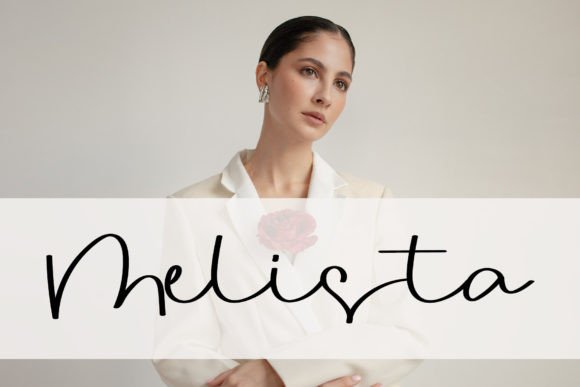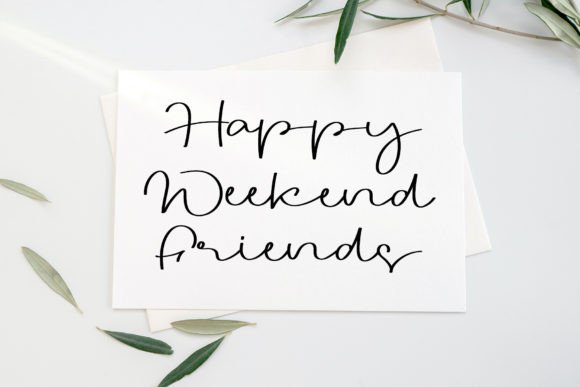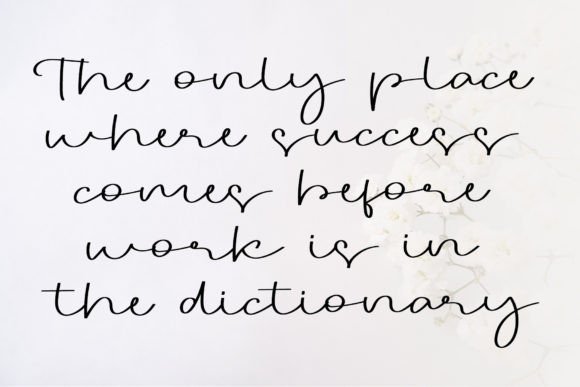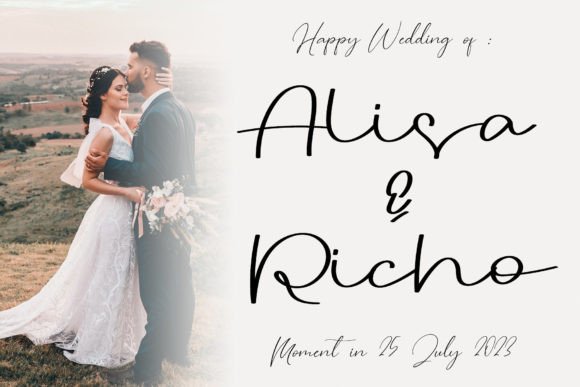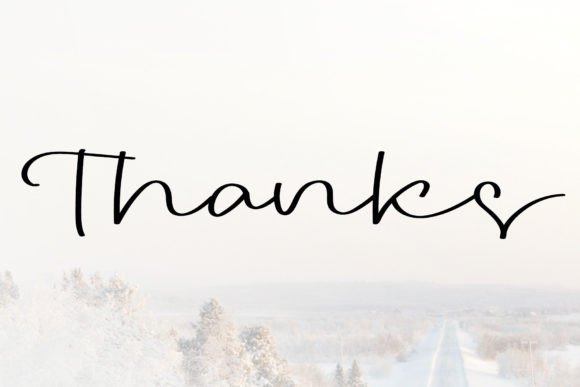
Introducing Blasted Font: The Sweet and Cursive Handwritten Font for Your Design Needs
Are you looking for a font that can add a touch of elegance and romance to your designs? Look no further than Blasted Font, a sweet and cursive handwritten font that is perfect for a variety of design projects. In this article, we’ll take a closer look at Blasted Font and explore its features, uses, and benefits.
What is Blasted Font?
Blasted Font is a beautiful, handwritten font that is designed to add a touch of warmth and personality to your designs. Its gentle, cursive script makes it perfect for creating elegant and sophisticated designs that are sure to impress. Whether you’re working on a branding project, designing a logo, or creating wedding materials, Blasted Font is the perfect choice.
Features of Blasted Font
So, what makes Blasted Font so special? Here are just a few of its key features:
• Sweet and Cursive Handwritten Style: Blasted Font has a beautiful, cursive script that is both elegant and playful.
• Versatile: This font is perfect for a variety of design projects, from branding and logos to wedding materials and greeting cards.
• Easy to Read: Despite its elegant style, Blasted Font is easy to read, making it perfect for body text and other applications where legibility is key.
• Fancy yet Casual: Blasted Font strikes the perfect balance between elegance and casualness, making it perfect for designers who want to create sophisticated designs that are still approachable.
Uses for Blasted Font
So, what can you use Blasted Font for? The possibilities are endless! Here are just a few ideas to get you started:
• Branding: Use Blasted Font to create a beautiful and memorable brand identity that will help you stand out from the competition.
• Logos: Create a stunning logo that incorporates Blasted Font and helps to establish your brand’s personality.
• Wedding Materials: Blasted Font is perfect for wedding invitations, programs, and other materials that require a touch of elegance and romance.
• Greeting Cards: Use Blasted Font to create beautiful and heartfelt greeting cards for any occasion.
• Fashion and Lookbooks: Blasted Font is perfect for fashion designers and stylists who want to create elegant and sophisticated lookbooks and marketing materials.
Benefits of Using Blasted Font
So, why should you choose Blasted Font for your design projects? Here are just a few benefits of using this beautiful font:
• Elegance and Sophistication: Blasted Font adds a touch of elegance and sophistication to any design, making it perfect for designers who want to create high-end materials.
• Versatility: This font is versatile and can be used for a wide range of design projects, from branding and logos to wedding materials and greeting cards.
• Unique and Memorable: Blasted Font is a unique and memorable font that will help your designs stand out from the competition.
In conclusion, Blasted Font is a beautiful and versatile font that is perfect for designers who want to add a touch of elegance and romance to their designs. With its sweet and cursive handwritten style, this font is perfect for a wide range of design projects, from branding and logos to wedding materials and greeting cards. Whether you’re a professional designer or a crafty DIY enthusiast, Blasted Font is a great choice for any design project.